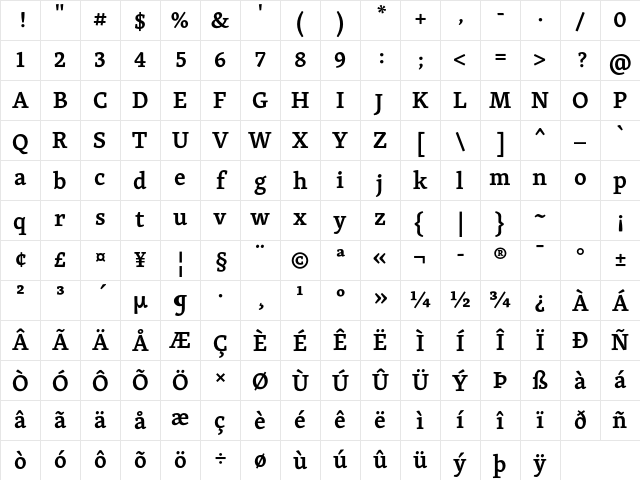
MP RSSkolar Devanagari is a composed and adaptable typeface that performs quietly and consistently across a wide range of design contexts. Its bold stroke weight gives it real presence on the page.